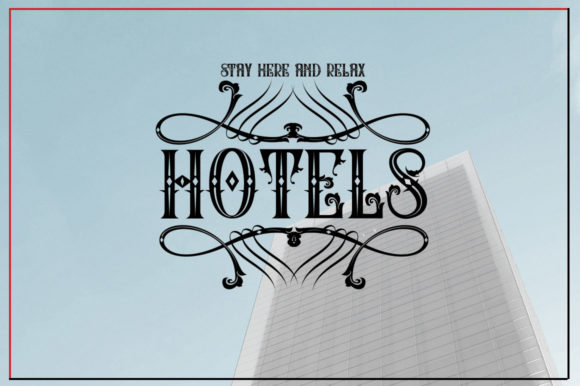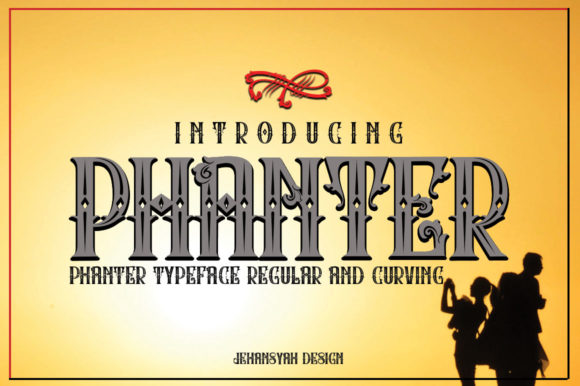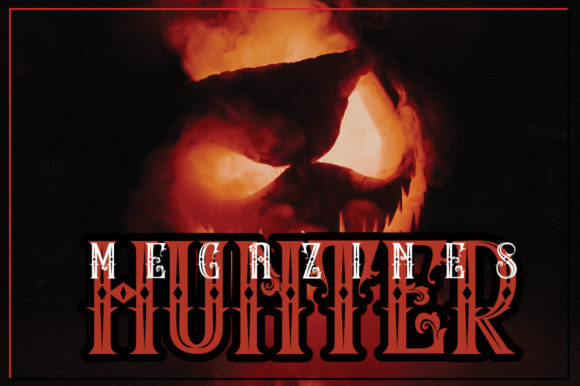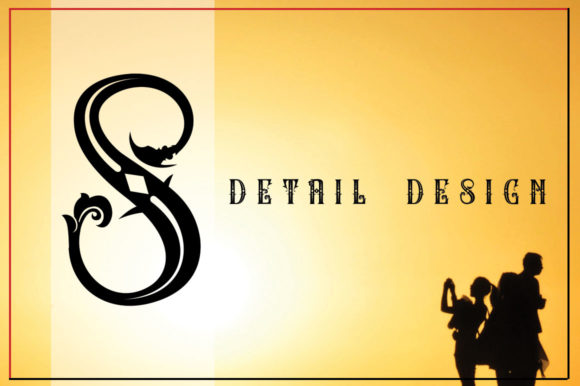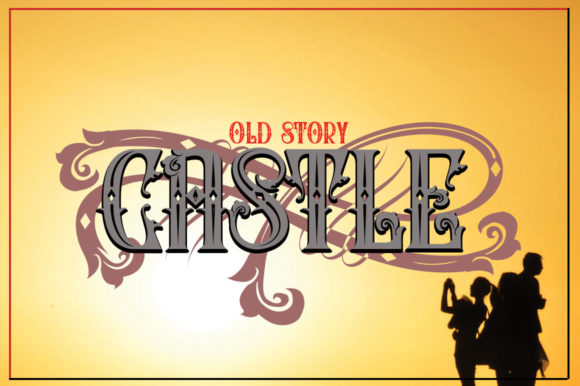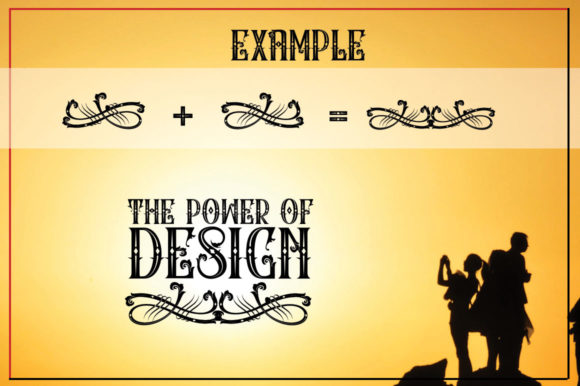
Introduction to Phanter Font
Have you ever stared at a blank canvas, waiting for inspiration to strike? For designers, this moment can be both exhilarating and daunting. But what if you had the perfect tool to turn your creative vision into a reality? Enter the Phanter Font, a high-quality display font that’s sure to make your design project stand out.
With its bold and powerful feel, the Phanter Font is the perfect addition to any creative project. Whether you’re working on a logo, brochure, or social media campaign, this font is sure to bring your design to life. And the best part? It’s available for free download, making it a valuable resource for designers of all levels.
So why settle for a generic font when you can make a statement with the Phanter Font? Its transparent background and unique design make it the perfect choice for designers who want to add a touch of creativity to their work.
Key Features of Phanter Font
- High-quality font designed for creative projects with a unique, modern aesthetic.
- Comes with a transparent background, making it easy to overlay on various design elements.
- Perfect for designers looking for a versatile and stylish font to enhance their creative project.
Honest Review: Phanter Font
I recently had the chance to work with the Phanter Font in a creative project, and I must say it’s been a game-changer. This high-quality font is perfect for anyone looking to add a touch of elegance to their design. The transparent background makes it incredibly versatile, allowing me to use it in a variety of settings.
What works well: ✨ The font is incredibly easy to use and install, even for those who aren’t design-savvy. The free download option is also a huge plus, making it accessible to designers of all levels. The font itself is incredibly versatile, with a wide range of styles and weights to choose from.
- Wide range of styles and weights
However, there are a few limitations to keep in mind: ⚠️ The font may not be suitable for very small text sizes, and the transparent background can sometimes be a bit glitchy. Additionally, the font may not be compatible with all design software.
Overall, I’m extremely impressed with the Phanter Font. It’s a valuable design resource that I’ll definitely be using again in the future. With its high-quality design and transparent background, it’s perfect for any creative project.
The Phanter Font is a high-quality, free design resource ideal for creative projects requiring a unique touch. With its transparent background, it can be easily integrated into various design platforms.
Tips for Getting the Most Out of Phanter Font
To get the most out of the Phanter Font, experiment with different font sizes, styles, and combinations. Use the font in conjunction with other design elements to create visually appealing and professional-looking designs.
Common Use Cases for Phanter Font
The Phanter Font is ideal for creative projects such as logos, business cards, brochures, and social media graphics. Its unique style and transparent background make it a versatile design resource for various applications.
Compared to Phanter Font, Great Vibes Font has a more subtle and refined feel, while Phanter Font is bolder and more dramatic. Great Vibes Font is available for free download, making it a great resource for designers on a budget.
Is the Phanter Font suitable for use on dark backgrounds?
Yes, the Phanter Font has a transparent background, making it suitable for use on dark backgrounds. However, please note that the font’s color may not be visible on very dark backgrounds, so it’s best to test it in your design software before finalizing your project.